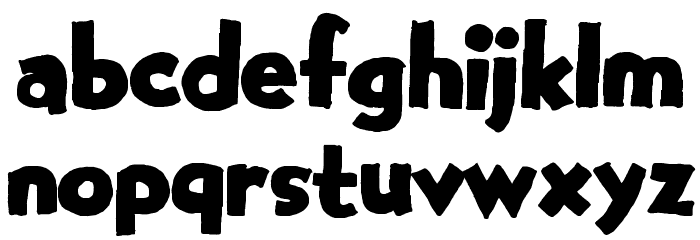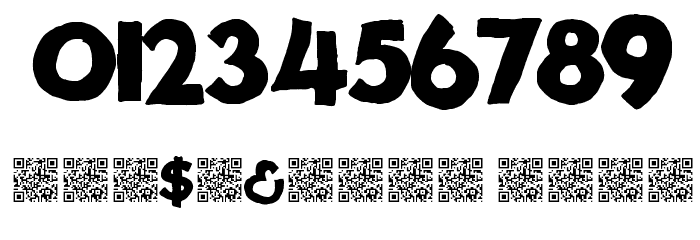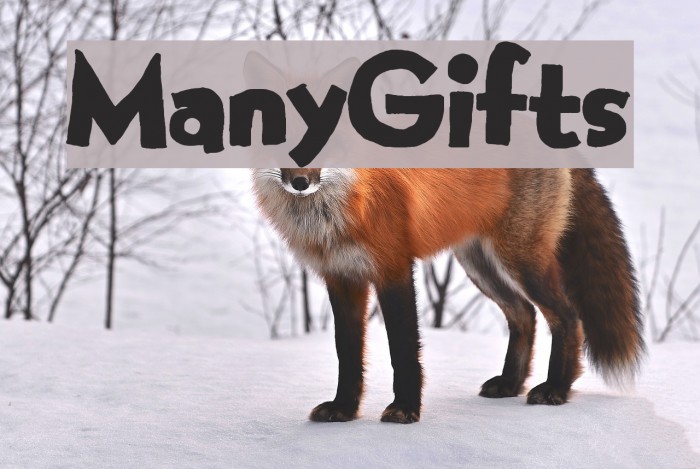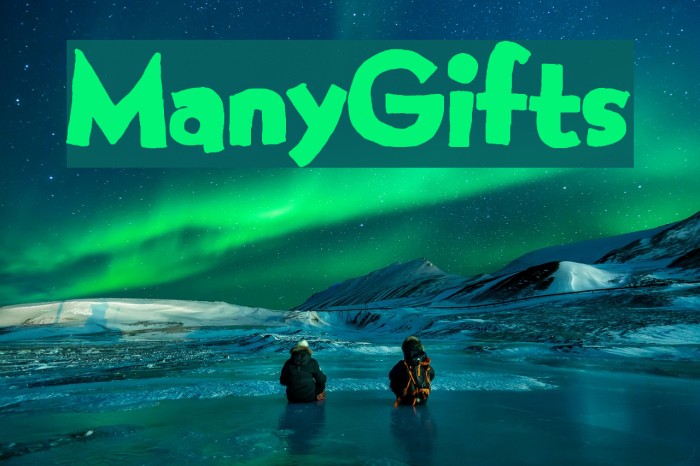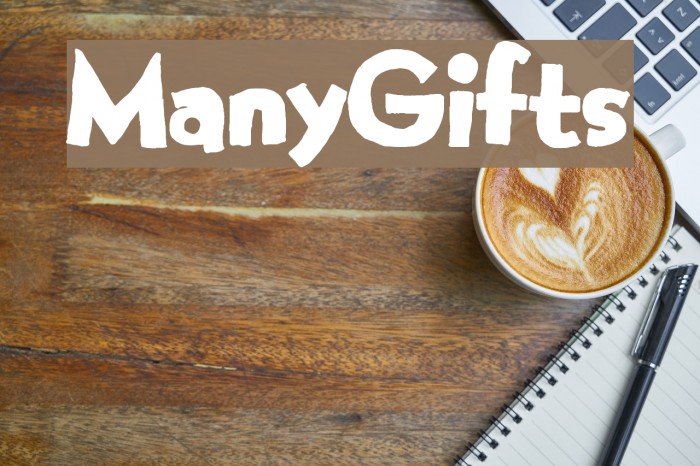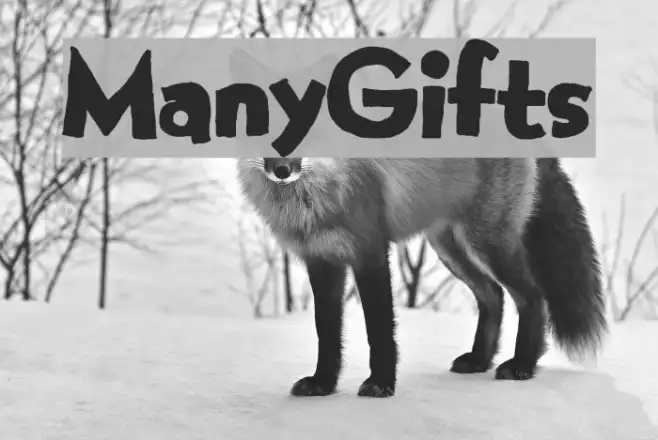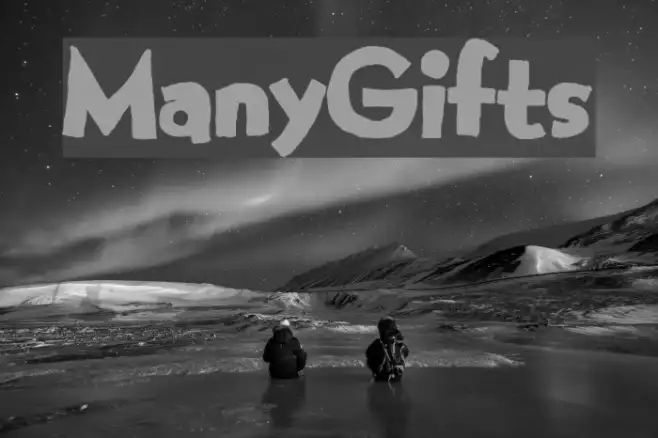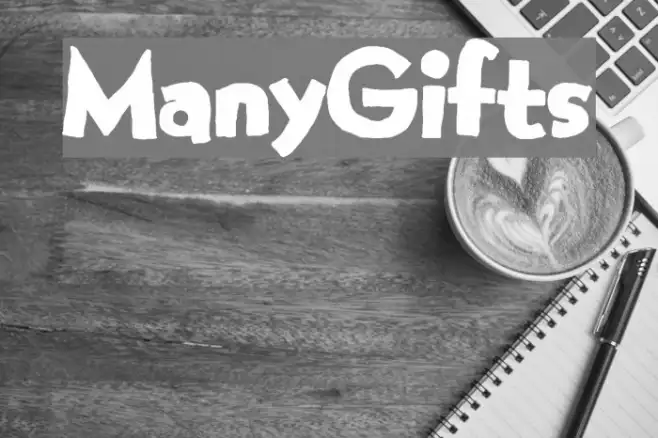
ManyGifts Font
This font features a bold and playful style with a hand-drawn appearance, characterized by its irregular and slightly uneven strokes. The letters have a whimsical, artistic flair, making them stand out with their thick, bold lines. The uppercase and lowercase letters maintain a consistent style, with rounded edges and a slightly rough texture that adds to its charm. The numerals and special characters follow the same design, ensuring a cohesive look across all elements. This font exudes a sense of fun and creativity, perfect for projects that require a touch of personality and uniqueness.
A bold, playful font with a hand-drawn, artistic style.
- Proposed Projects: Ideal for children's books, creative posters, playful branding, and artistic invitations.
- Overall Style: Playful, Artistic